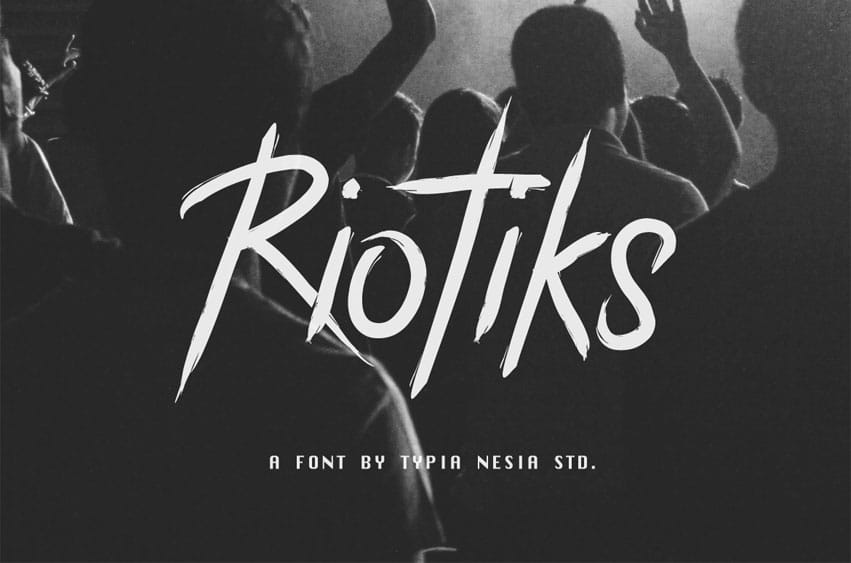
Riotiks Font is a rock punk brushed font with the rustic effect.
This is a bold and refreshing font that is suitable across the board for a wide range of designs, and works most effectively as a display or headline font.